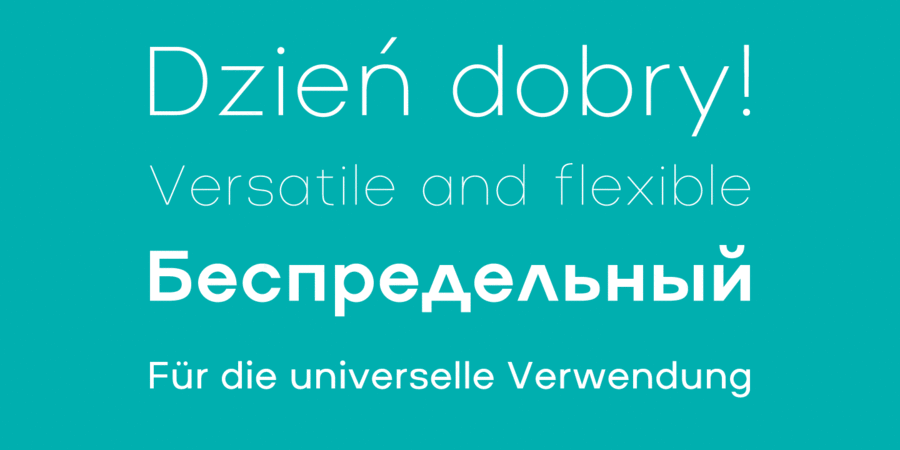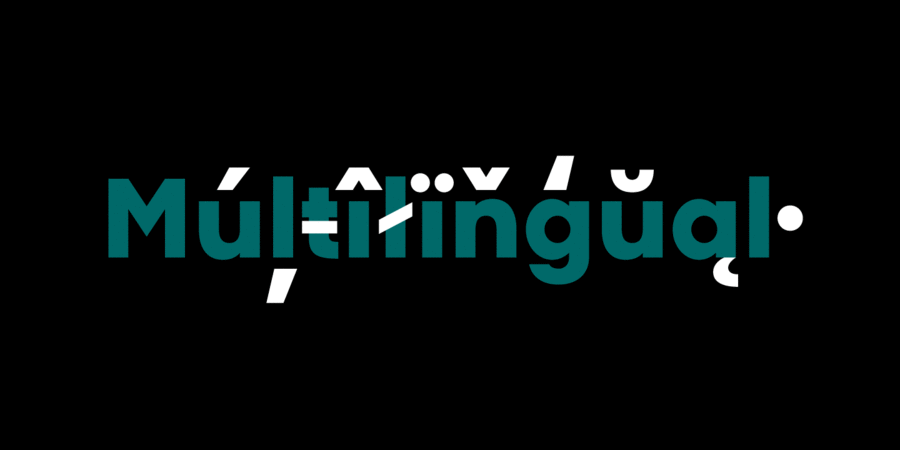
About MasivaMasiva font family is a geometric sans serif typeface with carefully crafted curves that provide a soft and pleasant appearance. Its universal shapes make it suitable for any kind of project, text length and size. It can be used as a powerful display typeface in big sizes. Also, thanks to its legibility, it can be used in long body texts in very small sizes and everything in between. It performs just as well in classic style projects as in contemporary or modern ones. Masiva consists of 12 styles, each containing small caps and glyph coverage for several languages. The font family has been designed for Graviton Font Foundry by Pablo Balcells in 2019.
Associations for font family MasivaTypeface personality and character:
elementary, minimalistic, accurate, flat, static, logical, laconic, stable, automatic, artificial, cold, engineering, urban, crisp, schematic, clean, modern, sharp, thin, wire, glass, easy, chilly, clear, weightless, transparent, fragile, fashionable, technical, simple, neutral, urbanistic, strict, pragmatic, practical, solid, available, serious, reliable, self-assured, machine, convincing, iron, steel, strong, robust, industrial, technogenic, authoritative, important, reputable, independent, responsible, good quality, architectural, motivating, tough, railway, ambitious, severe, lasting
scheme, design, lotion, Eau de Toilette, fashion, sky, device, engineer, city, science, architecture, technology, innovations, gadget, chemistry, mathematics, urban studies, code, constructor, automation, coworking, furniture, water, equipment, bank note, coin, repairs, news, tool, industry, mechanical engineering, factory, footwear, architect, fitness equipment, engine, machine tool, power station, energy industry, safe, metallurgy, robot, railway Typeface associated with age: